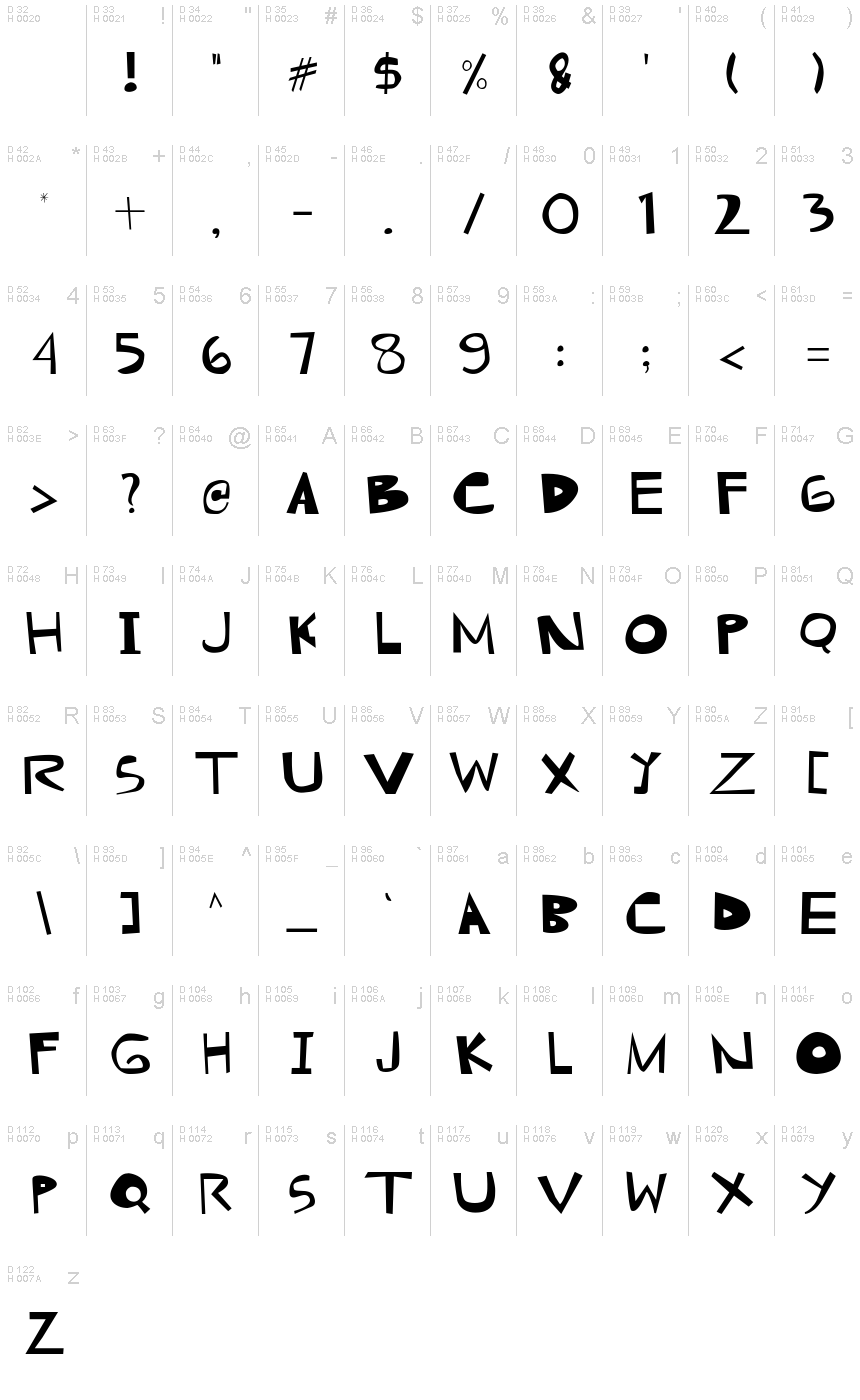
Khaollin Demo
Khaollin is a bold, expressive display font that exudes a delightful, playful essence. Designed by madeDeduk, this expanded typeface boasts a distinctive character with its whimsical, cartoon-inspired aesthetic. The robust and dynamic letterforms effortlessly capture the imagination, inviting viewers to explore the font's vibrant personality.
This versatile font lends itself seamlessly to a wide range of design applications, from eye-catching headlines and impactful branding to captivating packaging and engaging social media content. Khaollin's versatility makes it a prime choice for projects that aim to infuse a touch of playfulness, energy, and individuality into the visual landscape.